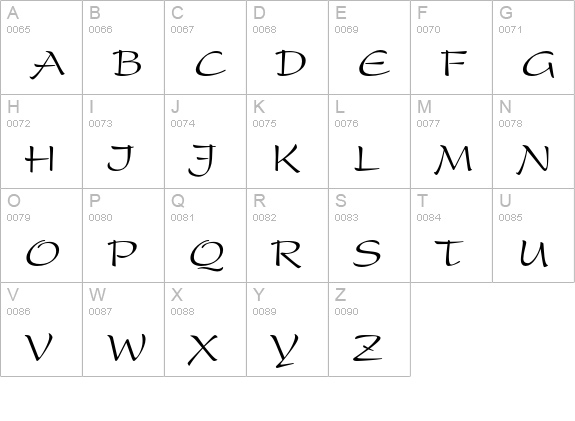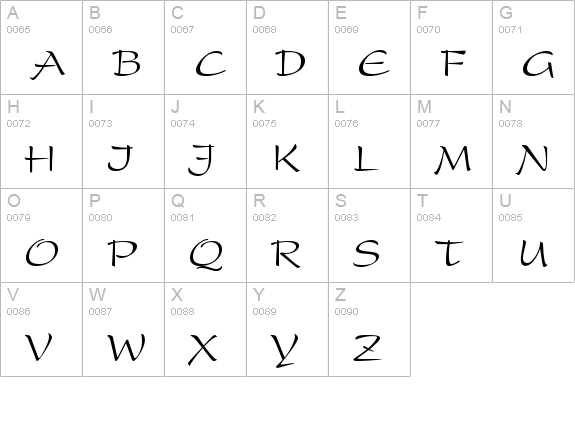
Present Condensed is a distinctive, condensed-width variant in the Present typeface family \xE2\x80\x94 well suited to design and typography projects.
Present Condensed font is a modern and stylish typeface that exudes sophistication and elegance. With its clean lines and sleek design, this font is perfect for a wide range of applications, from branding projects to editorial design and beyond. The versatility of Present Condensed font makes it a must-have in any designer's toolkit. Whether you're looking to create a sleek and professional look or add a touch of modernity to your designs, this font has got you covered. Best of all, Present Condensed font is completely free to download at FontsMarket.com. So you can start using this stunning font in your projects right away without breaking the bank. Don't miss out on the opportunity to elevate your designs with the timeless appeal of Present Condensed font.